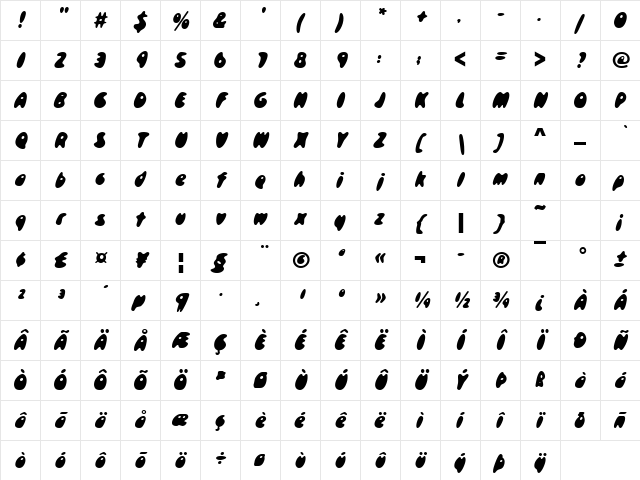
SkidoosD Regular
SkidoosD Family
SkidoosD Regular
Complete SkidoosD Regular glyph index. Displaying only characters natively supported by SkidoosD Regular font.
Design Context for SkidoosD
SkidoosD is a composed and adaptable typeface that performs quietly and consistently across a wide range of design contexts.